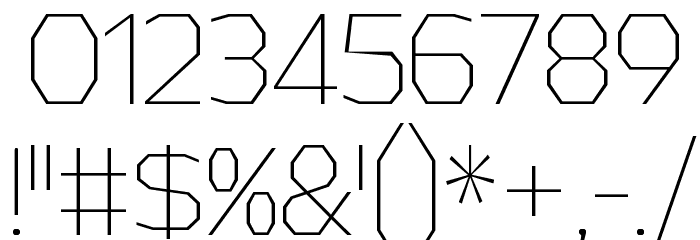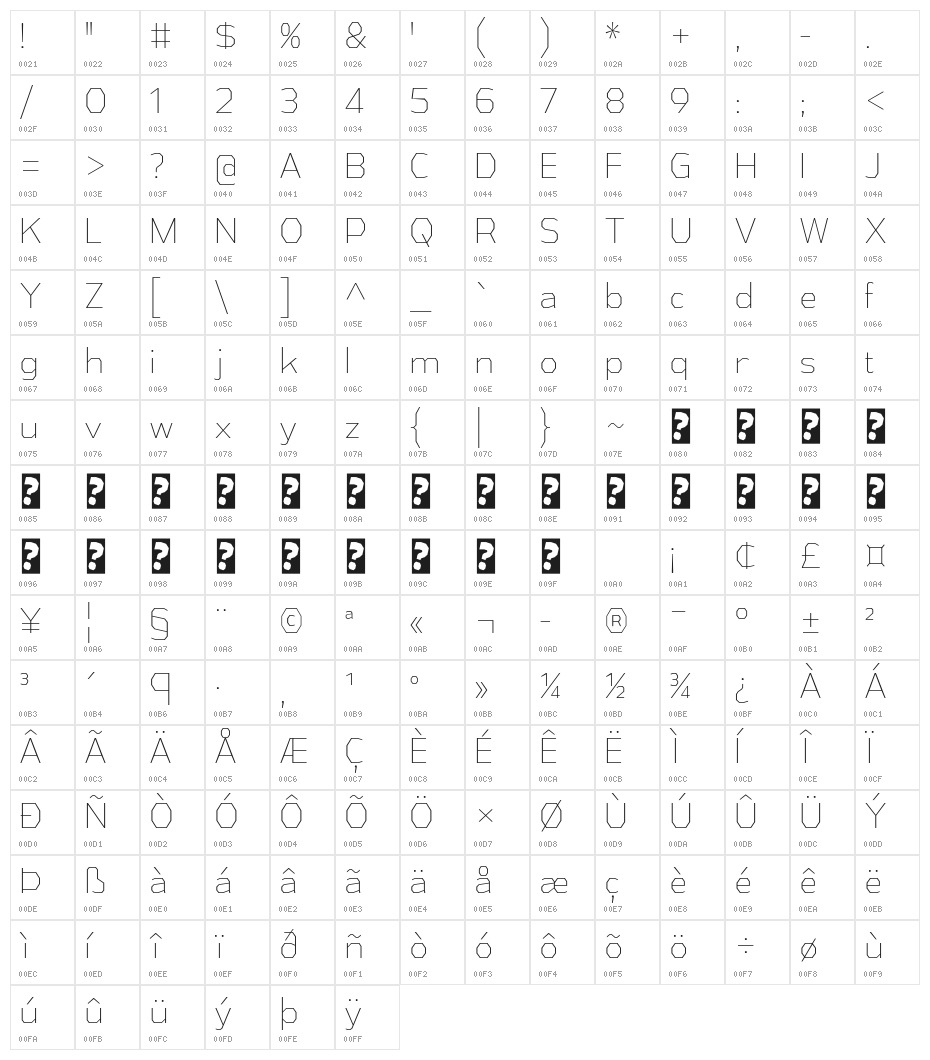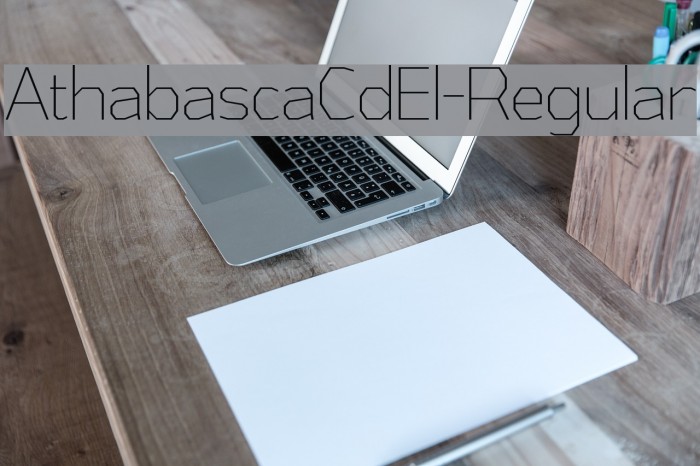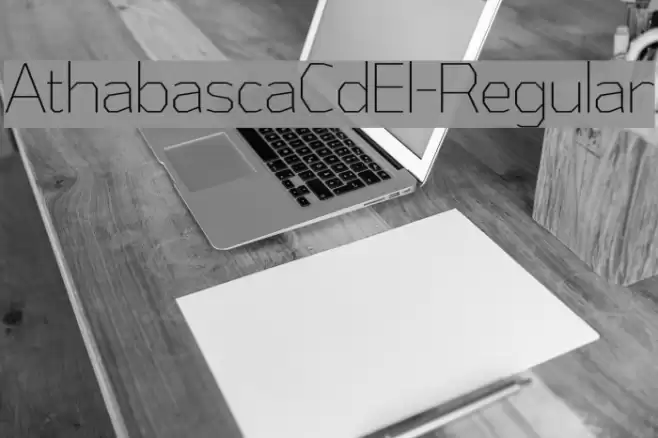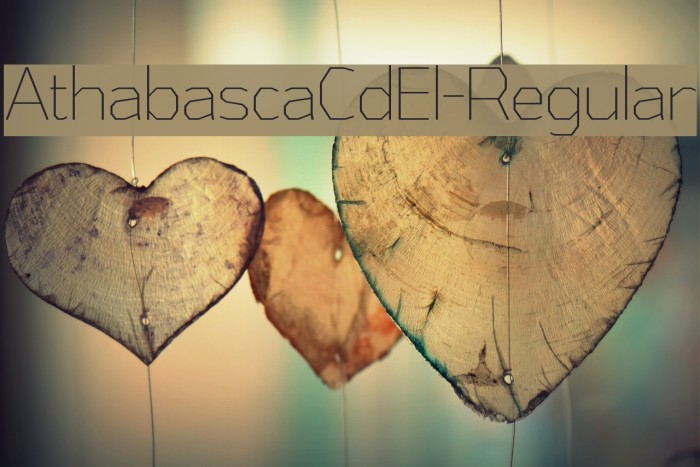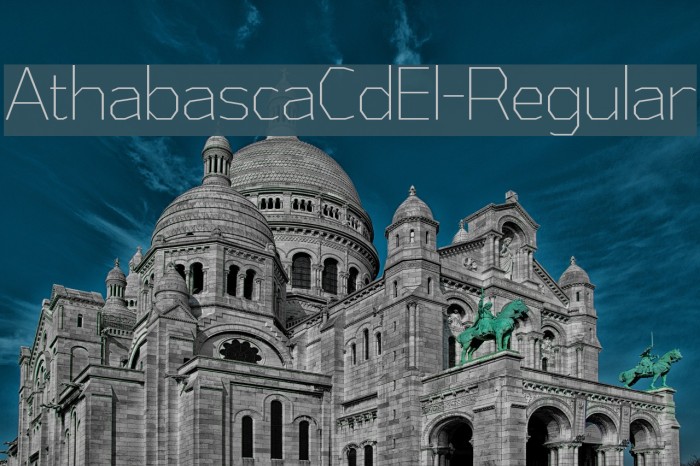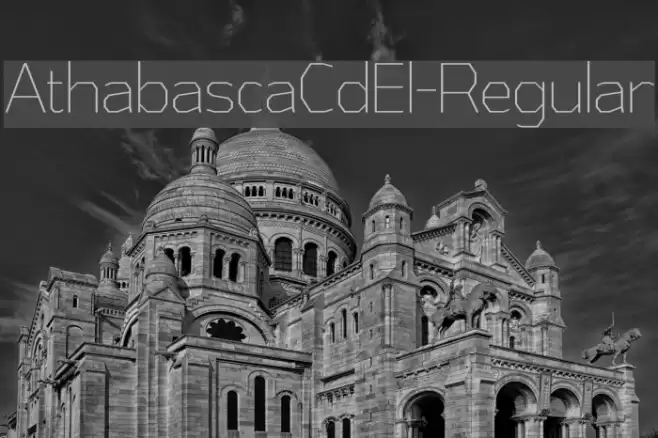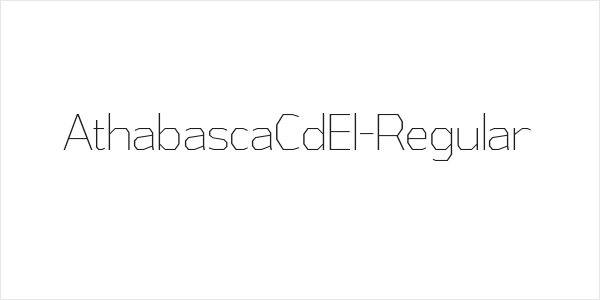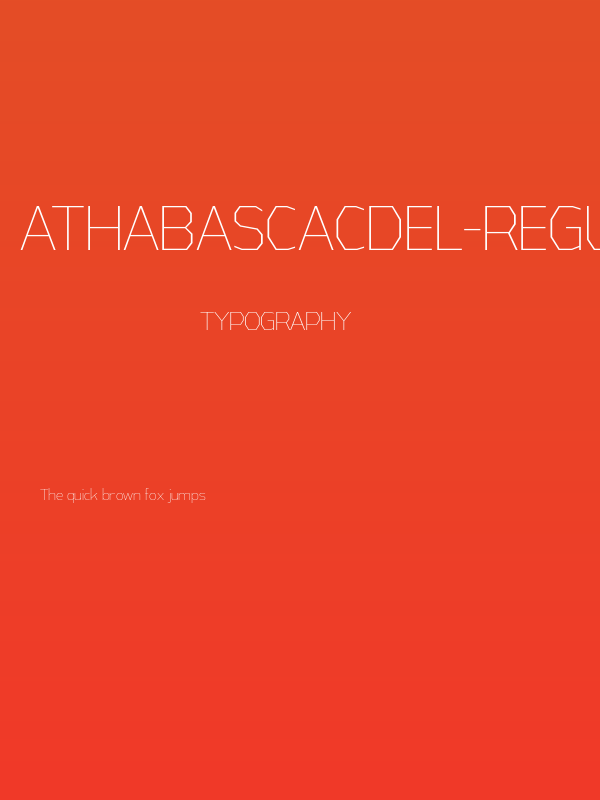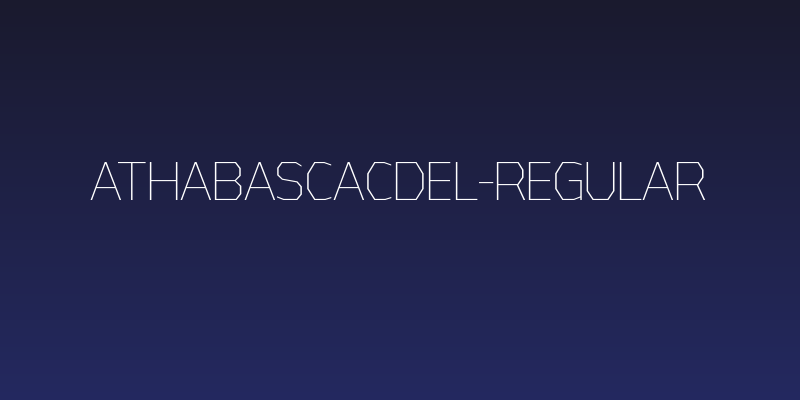
AthabascaCdEl-Regular Font
AthabascaCdEl-Regular Description
This font features a geometric and angular design, characterized by its sharp edges and clean lines. The uppercase and lowercase letters maintain a consistent structure, with a modern and technical appearance. The numerals and special characters follow the same geometric style, providing a cohesive look across all glyphs. The font's minimalistic and precise form makes it suitable for projects that require a contemporary and structured aesthetic.
| Proposed Projects | Ideal for technology branding, architectural designs, modern posters, and digital interfaces. |